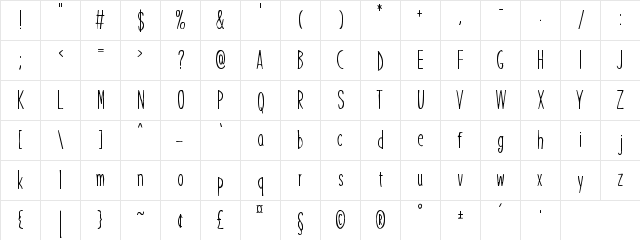
Dream Arranger Regular
Design Context for Dream Arranger Typeface
Dream Arranger takes a measured approach to typography — its balanced proportions and neutral character make it a reliable workhorse for both digital and print work.